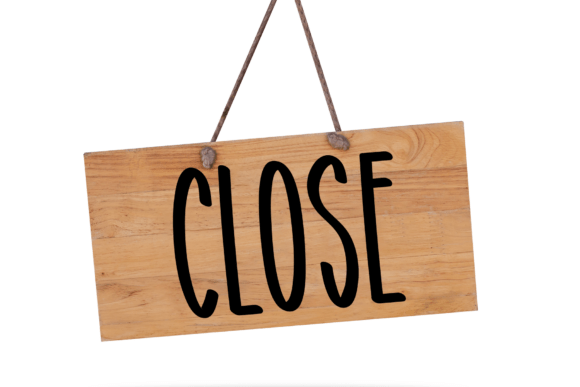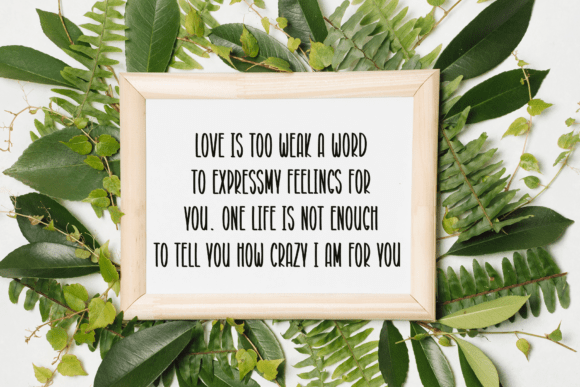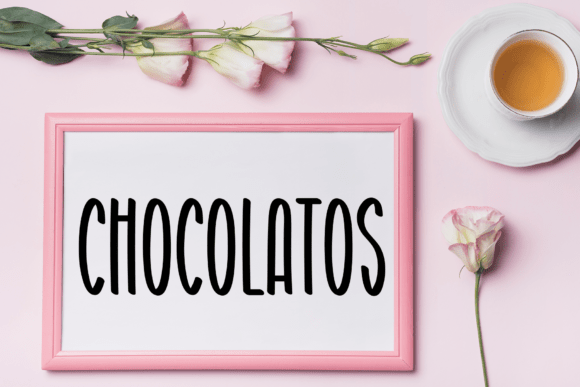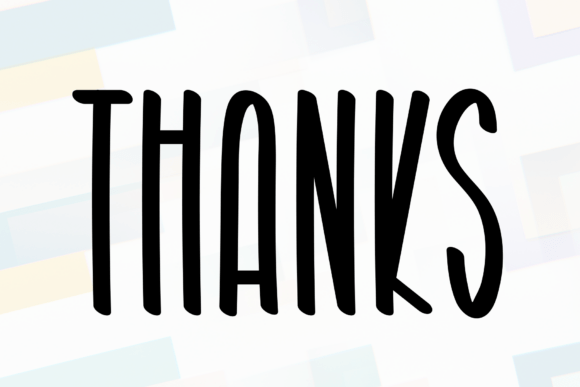
Designing a Statement
Have you ever stared at a blank canvas, trying to conjure up the perfect typography to capture the essence of your project? It’s a moment we’ve all been there – a mix of excitement and intimidation, as we strive to create something truly impactful. For designers seeking to elevate their work, the Breakline Font offers a unique opportunity to add a touch of sophistication and modernity.
This sleek, condensed display face is designed to make a statement, with its clean lines and commanding silhouette. The Breakline Font is perfect for those who want to convey a sense of confidence and professionalism in their designs, without sacrificing readability. Its versatility makes it an invaluable tool for designers, allowing them to create a wide range of styles and atmospheres.
Breakline Font Key Features
- Unique Characteristics: Breakline Font features a unique blend of modern and vintage elements, with bold lines, geometric shapes, and subtle texture, making it perfect for creating eye-catching designs.
- Font Styles: The font family includes multiple styles, such as Regular, Bold, Italic, and Bold Italic, providing flexibility for designers to choose the perfect style to suit their needs.
- Language Support: Breakline Font supports a wide range of languages, including Latin, Cyrillic, and Greek alphabets, making it suitable for international designs.
Breakline Font Review
Overall, I’d say Breakline Font is a decent addition to any designer’s toolkit. It’s got some great qualities that make it a solid choice for certain projects, but it’s not without its flaws. Let’s start with the good stuff:
- ✨ Clean and modern aesthetic: Breakline Font’s sleek design makes it perfect for contemporary branding and digital projects.
- ✨ Highly legible: The font is easy to read, even at small sizes, making it ideal for text-heavy content.
- ✨ Versatile: Breakline Font comes in multiple weights, from light to bold, giving designers plenty of options for customizing their designs.
Now, onto the not-so-great stuff:
- ⚠️ Limited expressiveness: Breakline Font’s design, while clean and modern, can come across as a bit generic and lacking in personality.
- ⚠️ Not ideal for large-scale print projects: While Breakline Font is great for digital projects, its design may not hold up as well in print at larger sizes.
Overall, I’d say Breakline Font is a solid choice for designers working on modern, digital projects. While it may not be the most expressive font out there, its clean design and versatility make it a reliable option. Just be aware of its limitations, and use it accordingly.
Getting the Most Out of Breakline Font
To get the most out of Breakline Font, use it for:
- Creating unique and eye-catching headlines.
- Designing modern and minimalist typography.
- Adding a touch of elegance to your designs.
Breakline Font is commonly used for:
- Logos and branding materials.
- Advertising and marketing campaigns.
- Web and app design.
Alternatives to Breakline Font for Designers
Inter Font is a sans-serif font designed by Rasmus Andersson. It is a modern and highly legible font suitable for digital use. Use Inter Font for body text, headings, and titles where you need a clean and neutral font.
Compared to Breakline Font, Inter Font is more versatile and offers better legibility in digital formats. While Breakline Font has a more distinctive and hand-drawn feel, Inter Font is more neutral and suitable for a wider range of applications.